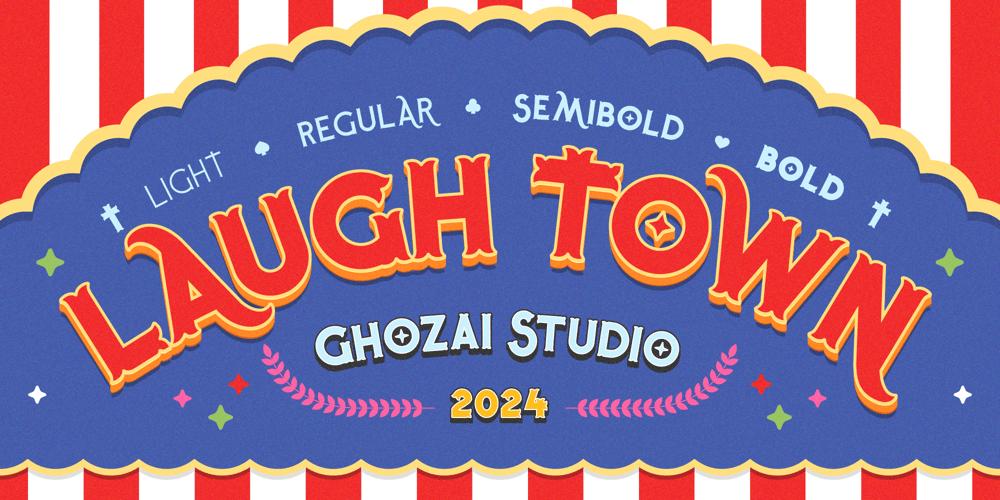
Laugh Town Font Family was designed by Manzur Ghozaali and published by Ghozai Studio. Laugh Town contains 4 styles and family package options. Laugh Tale is a display font that inspired by a carnival/circus typeface. Laugh tale comes in a wide range of styles from light to bold. Laugh Tale is also supported with many Opentype features and is multilingual to support any needs. Laugh Tale is ideal for festivals, carnival themes, headlines, titles, signage, branding, and strong designs that require a big impact.